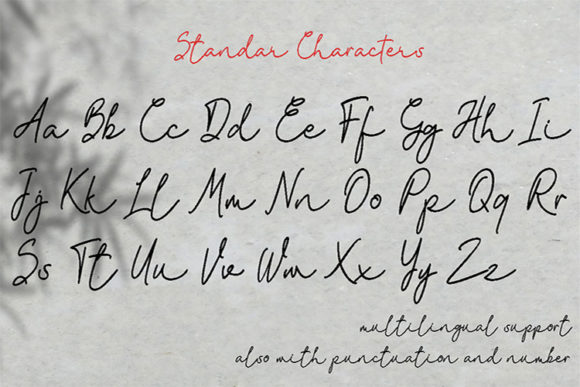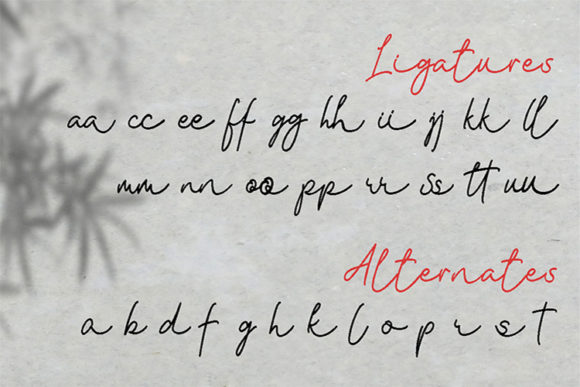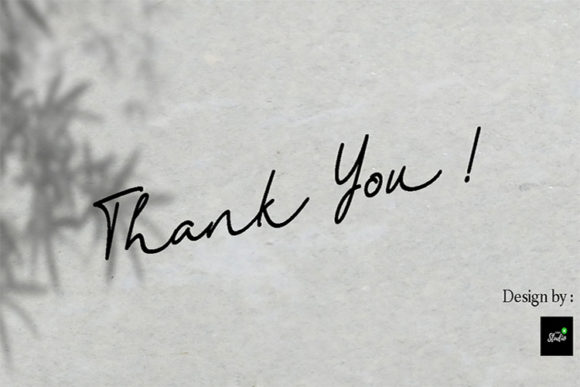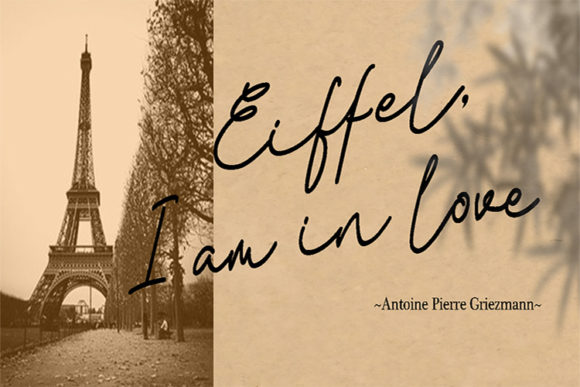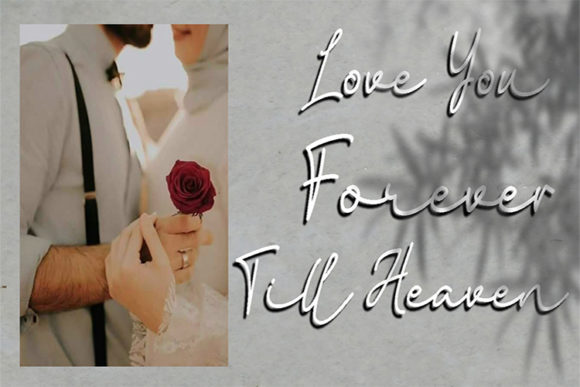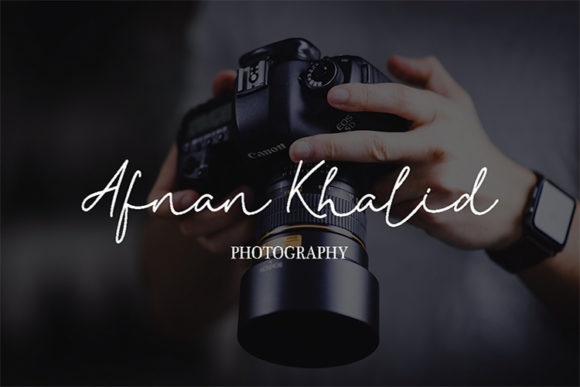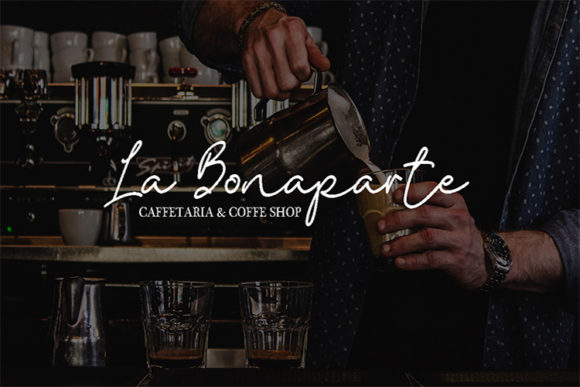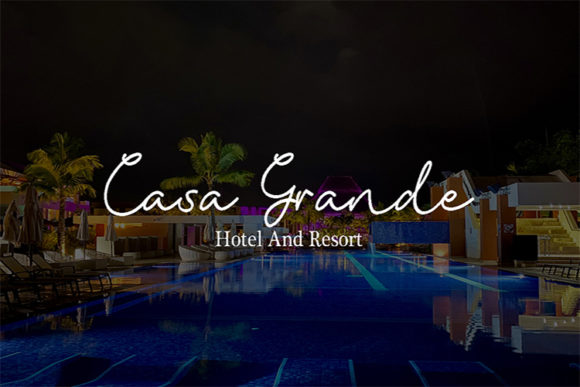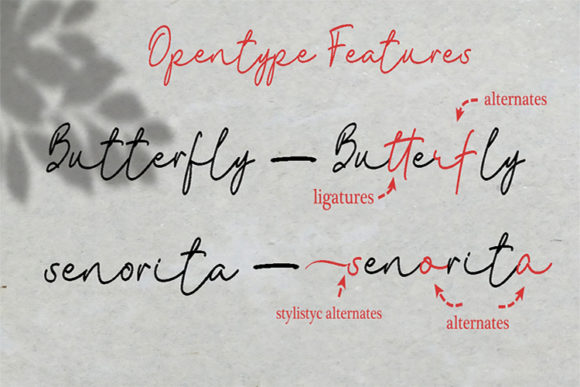
Epic Kantona Font
About Epic Kantona Font
Epic Kantona is a stunningly elegant and sweet script that radiates authenticity. Get inspired by its personal look and feel!